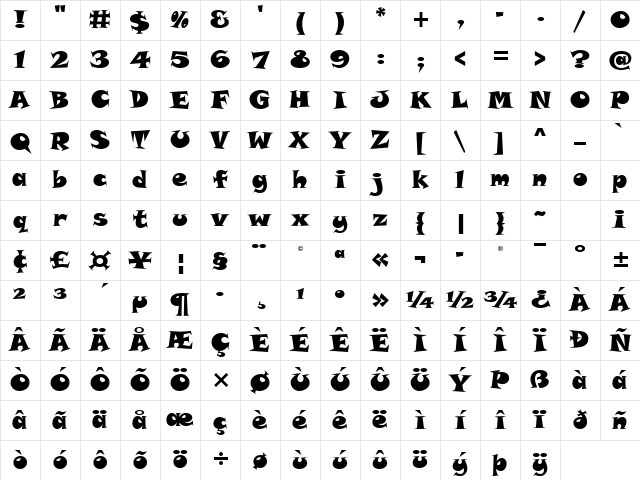
Snap ITC Regular
Snap ITC Family
Design Context for Snap ITC
Snap ITC is a composed and adaptable typeface that performs quietly and consistently across a wide range of design contexts.
Pro Tip: Use Snap ITC in both headline and body roles to test its range before committing to a single application.